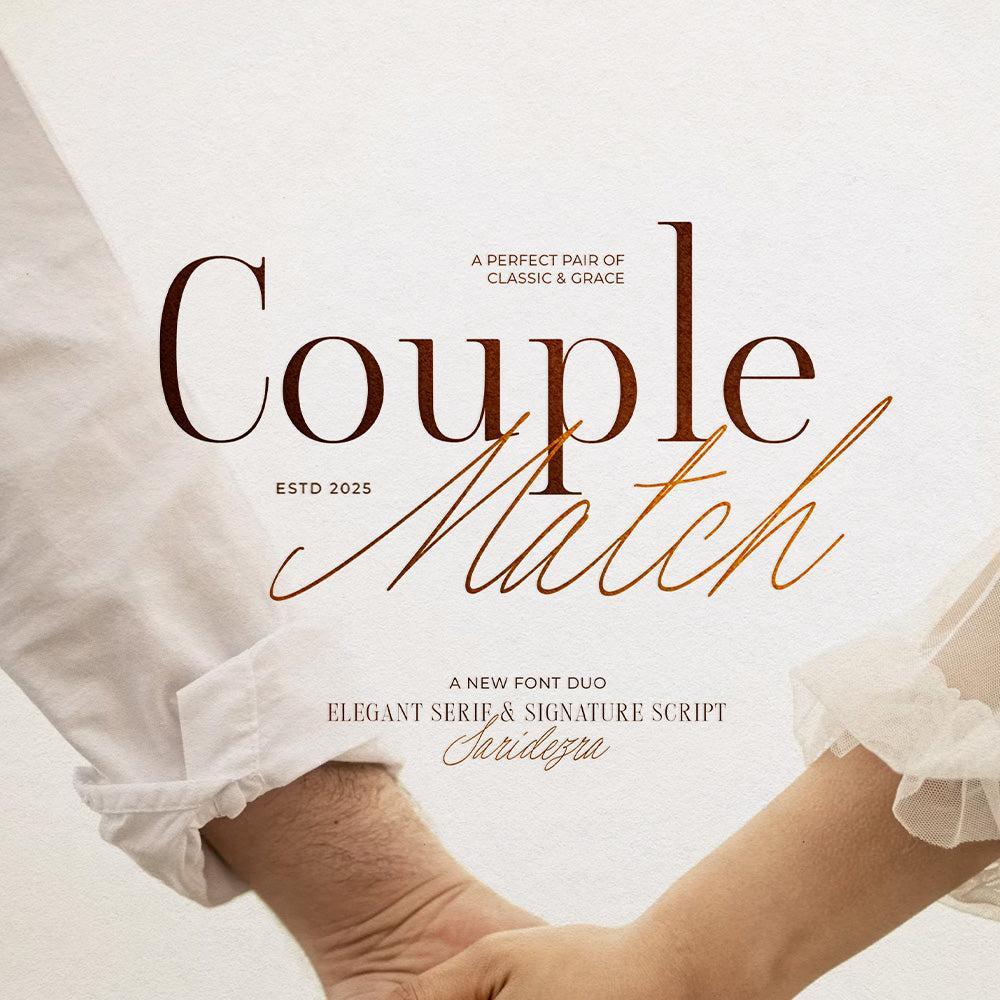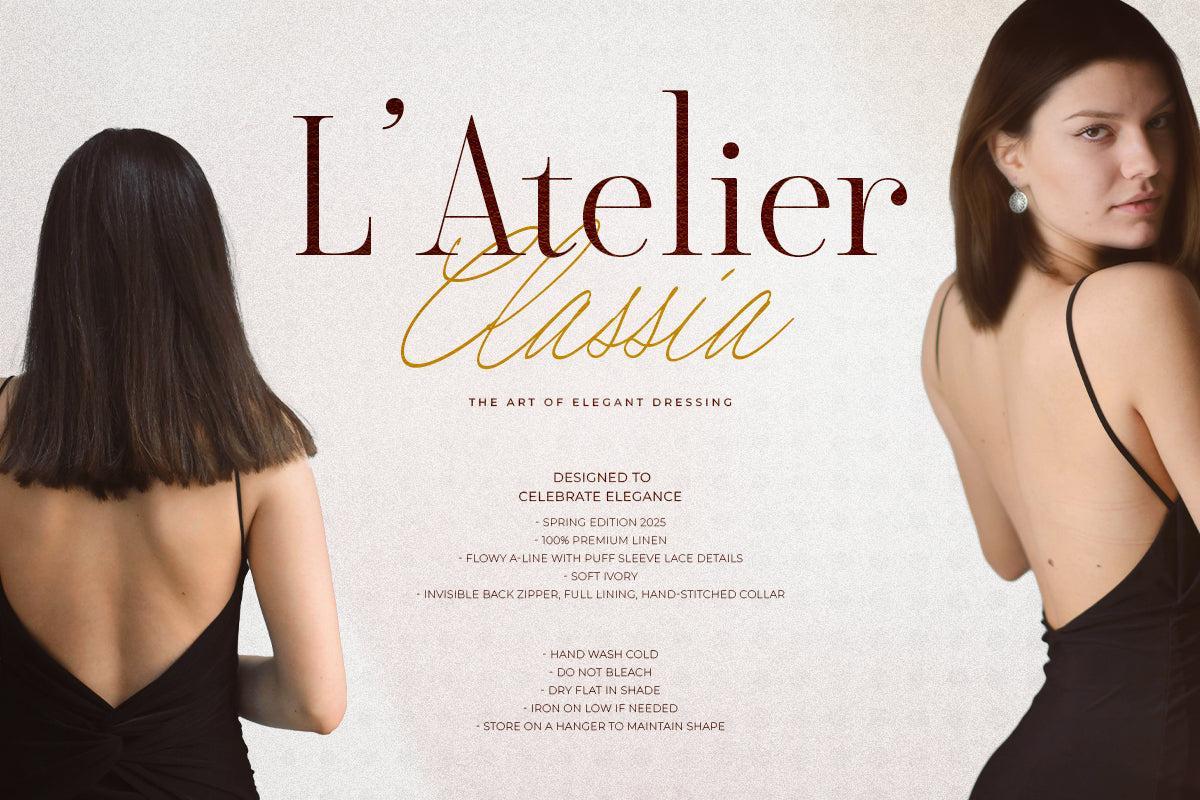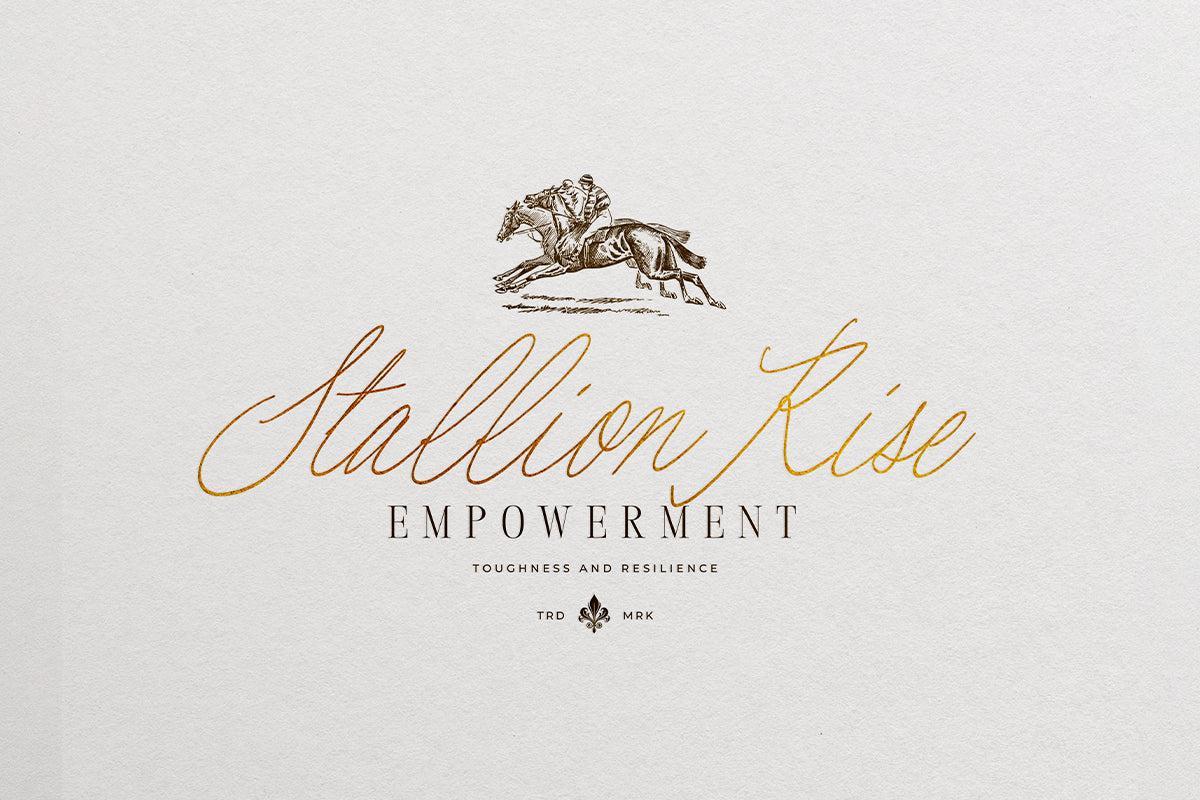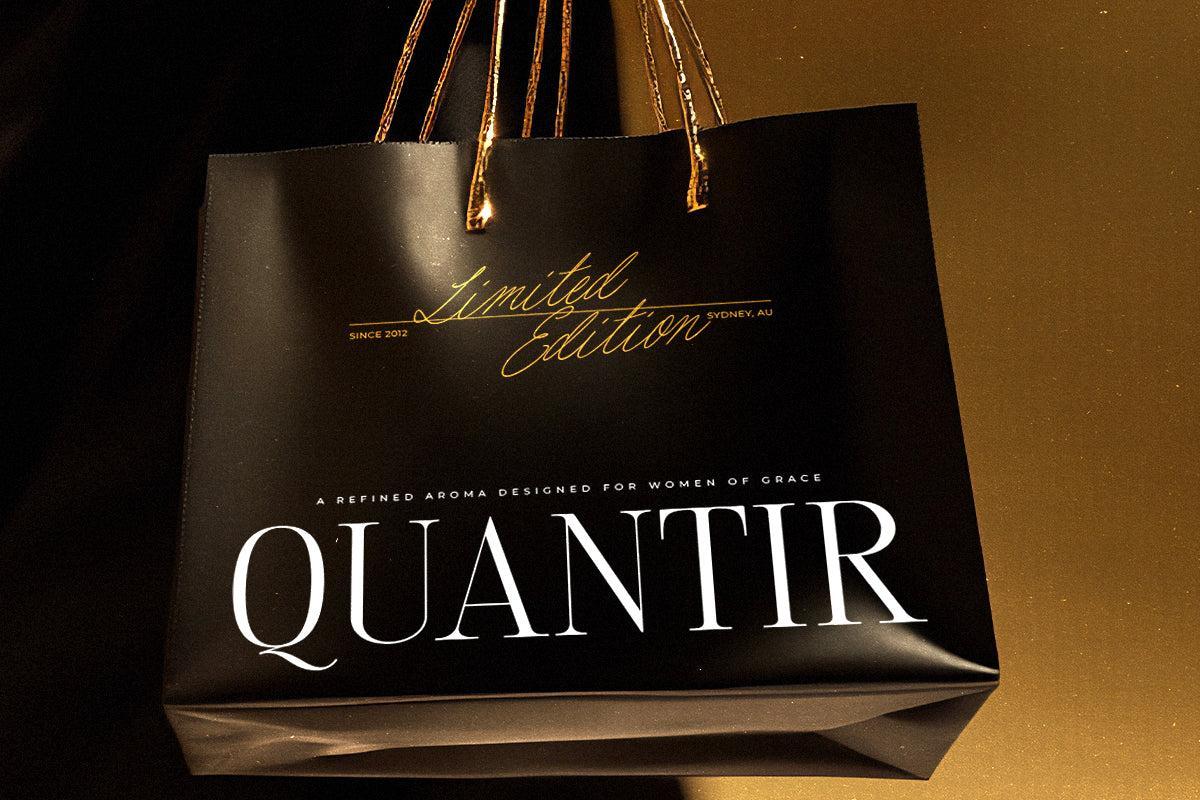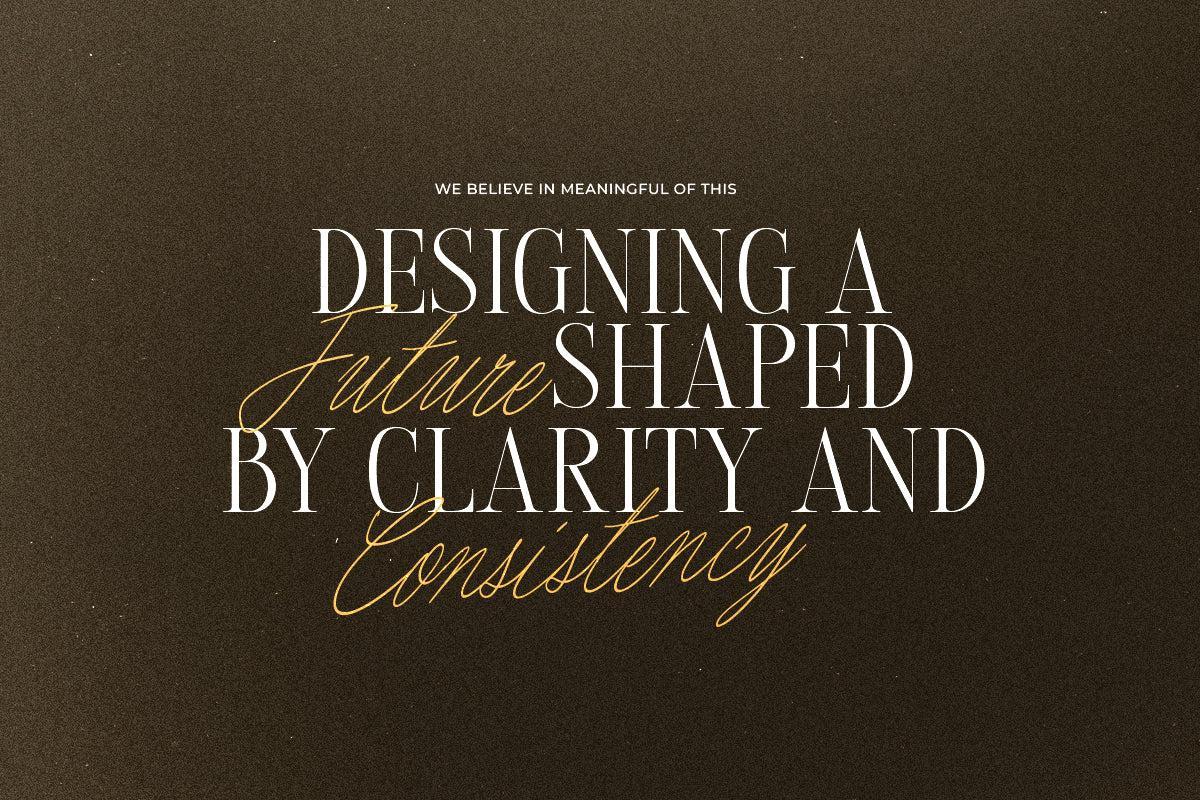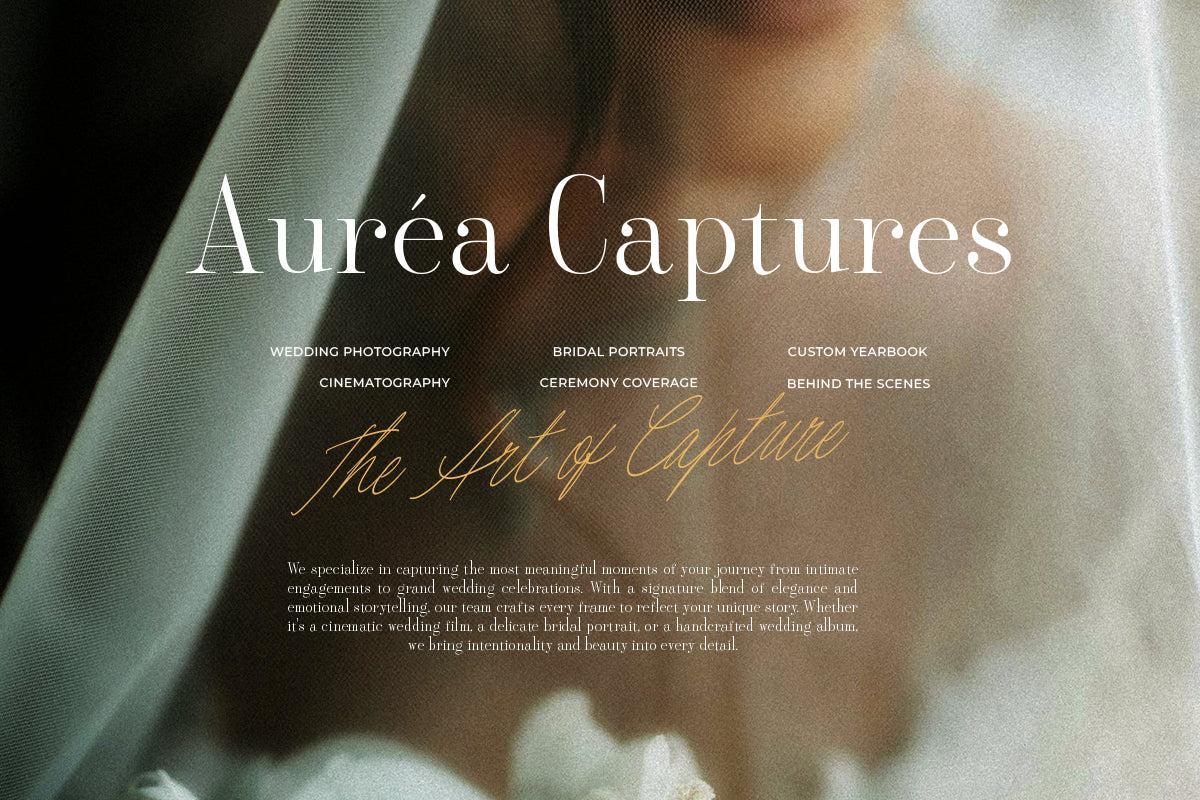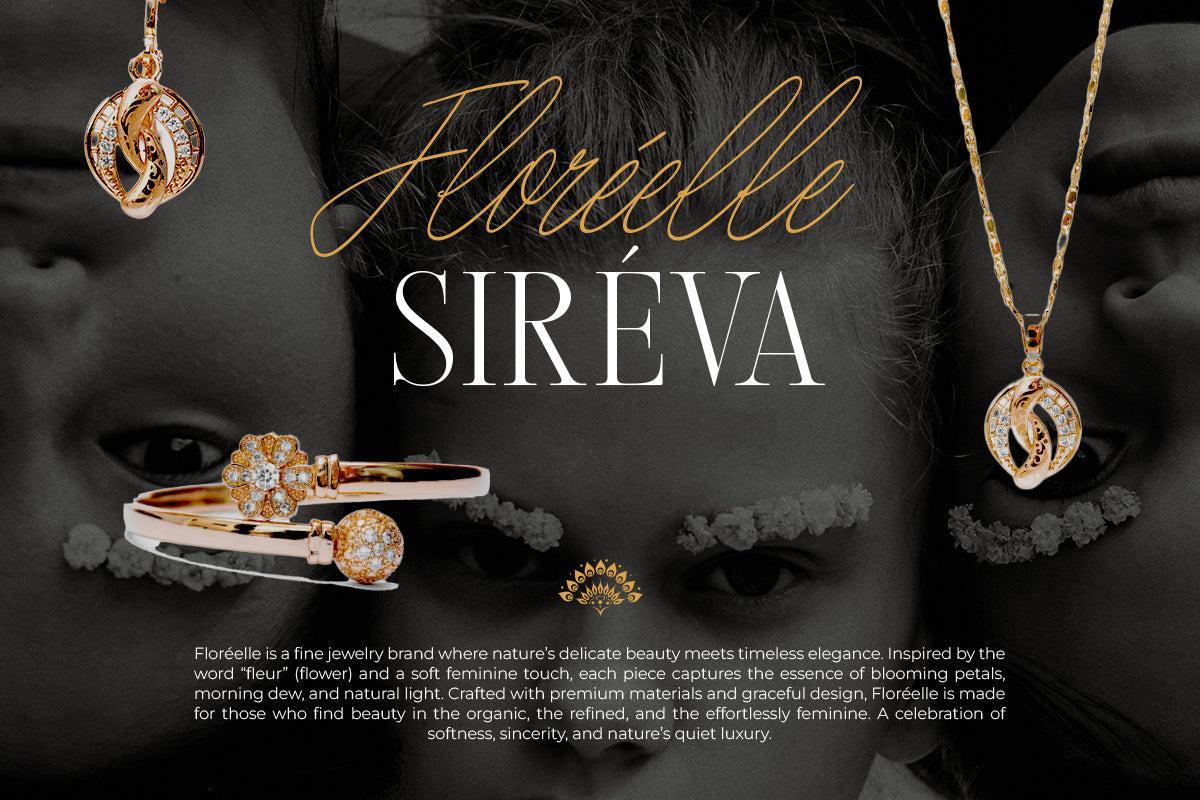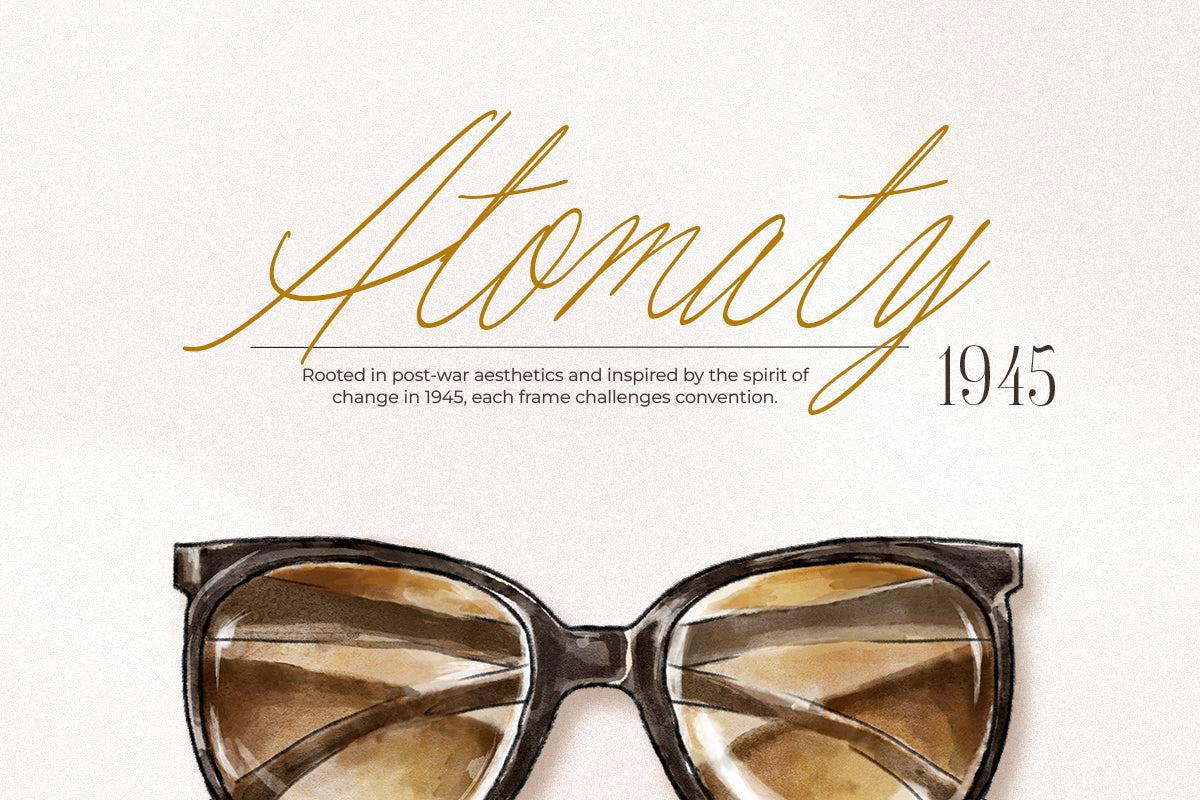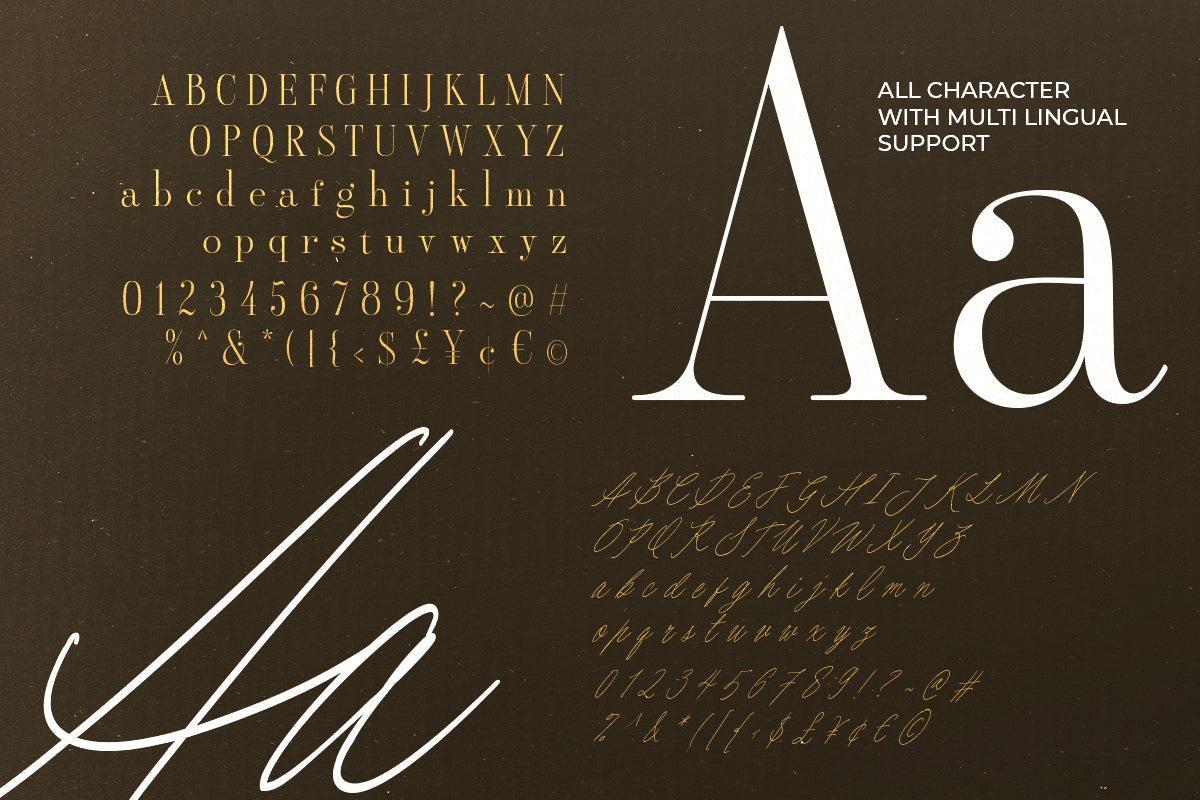
Couple Match - Luxury Font Duo
Couple Match - Luxury Font Duo includes two fonts: a modern tall serif and a handwritten script, designed to provide a blend of elegance and sophistication. This font duo supports multilingual characters, numbers, and symbols, making it versatile for various design projects.